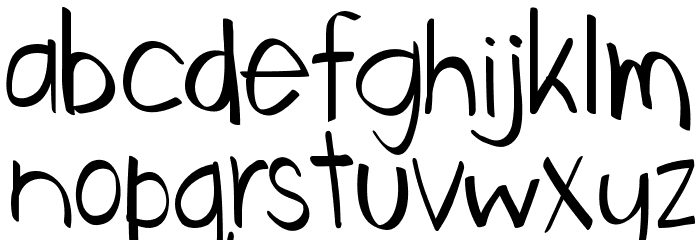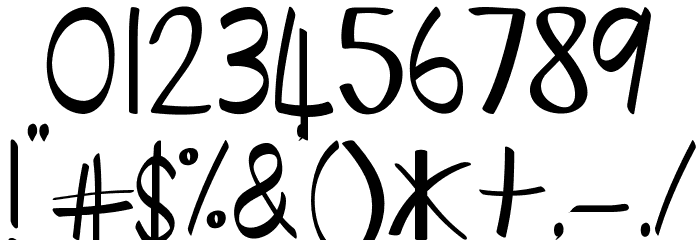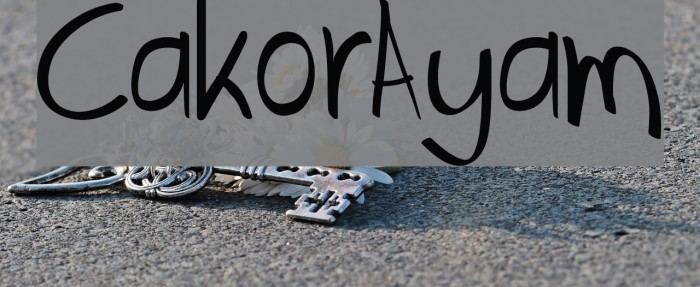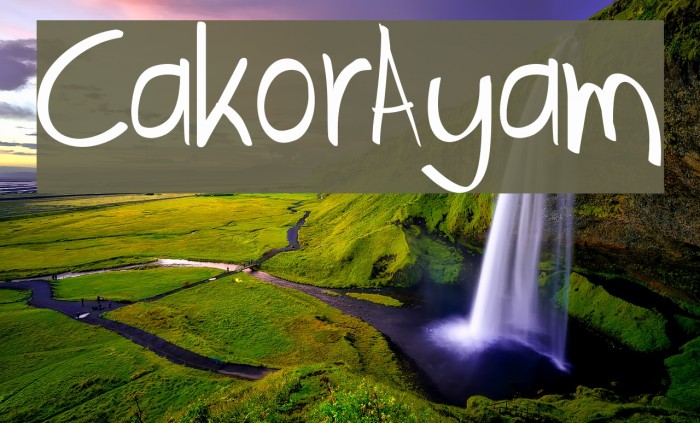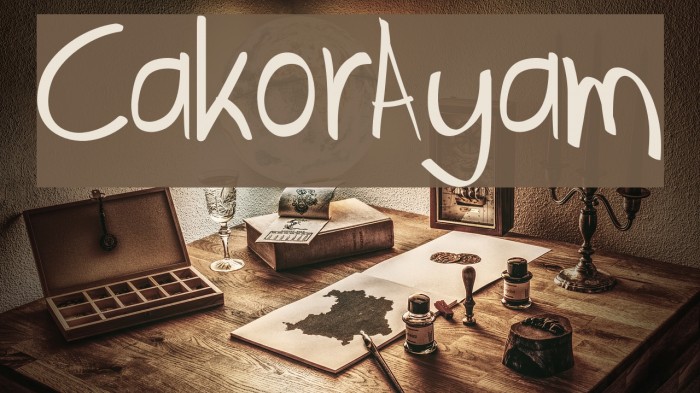
CakorAyam Font
This font features a playful and informal handwritten style, characterized by its irregular and slightly whimsical letterforms. The uppercase letters are bold and slightly uneven, giving a casual and friendly appearance. The lowercase letters maintain a consistent style with a slight slant, adding to the informal tone. Numbers are clear and legible, while special characters are creatively designed to match the overall aesthetic. The strokes are moderately thick, providing good readability while maintaining a fun and approachable vibe.
A playful, handwritten font with bold, irregular strokes and a casual style.
- Proposed Projects: Ideal for children's books, playful branding, casual invitations, and creative posters.
- Overall Style: Playful